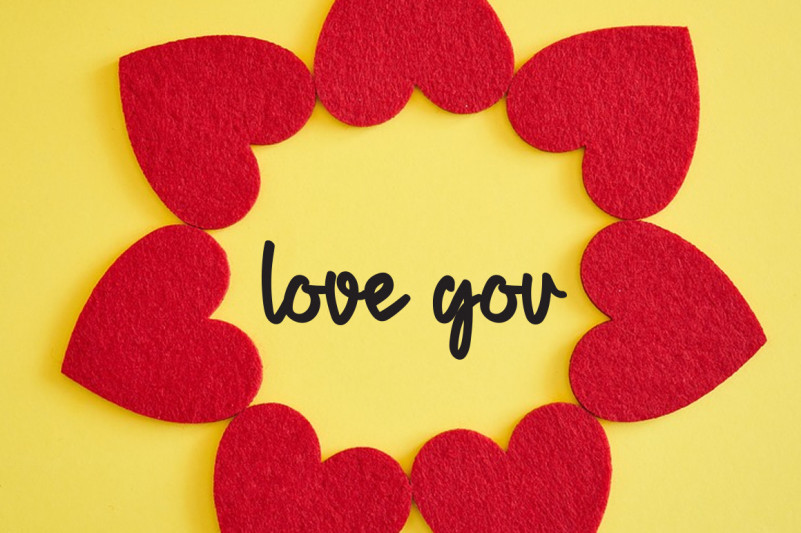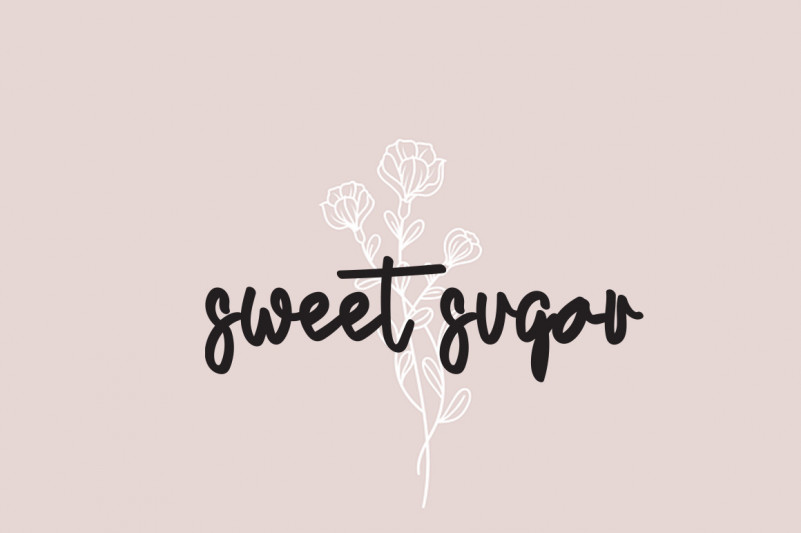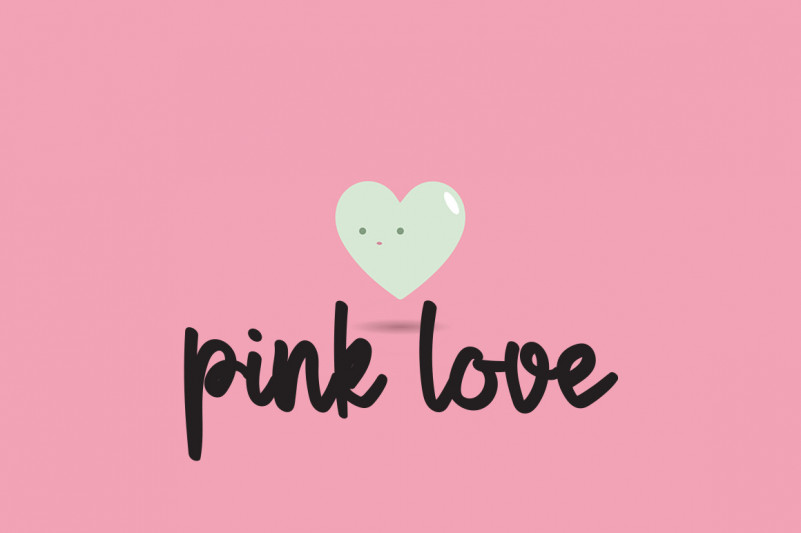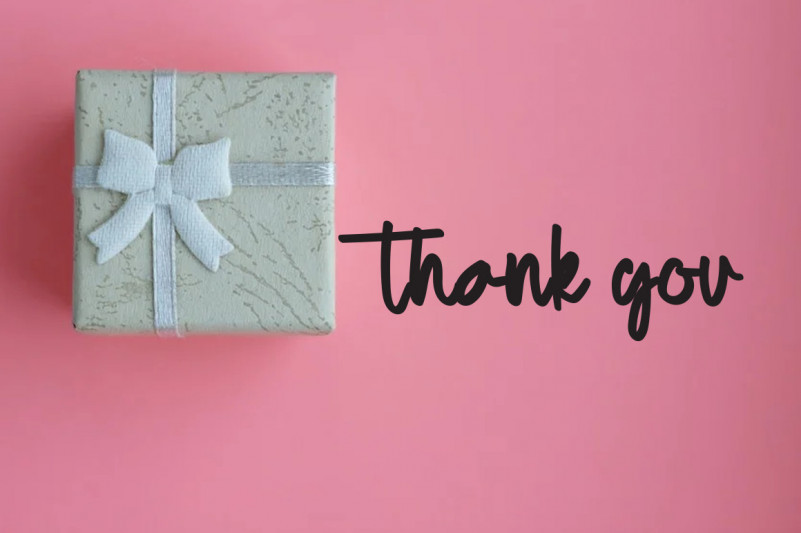
Sweet Rainbow Font
Sweet Rainbow Handwritten Font
This is a unique, fun and friendly handwritten font. Whether you’re looking for a font for Instagram or a calligraphy script for a DIY project, this font will turn any creative idea into a true work of art!